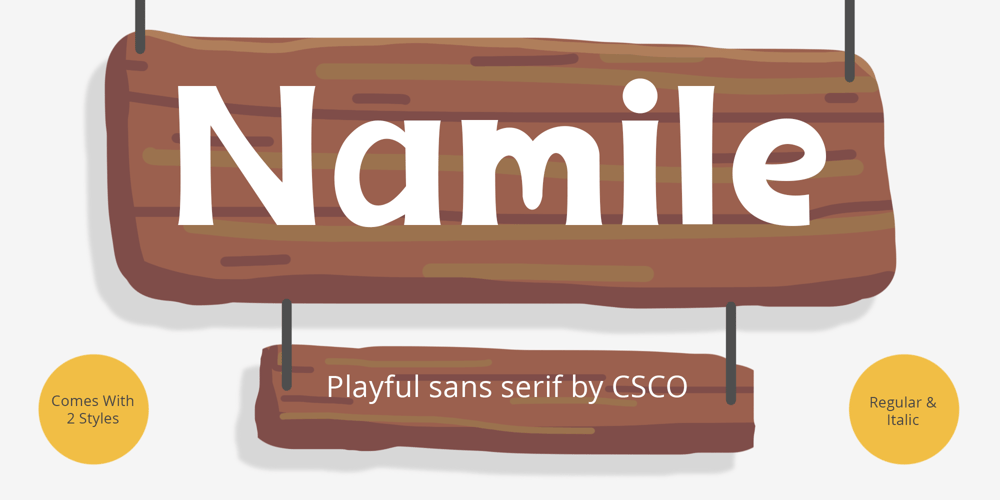
Namile
Namile font
Namile Font Family was designed by Trio Nazzar Saputra, Wahyu Hadi Yuana and published by Craft Supply Co. Namile contains 2 styles and family package options. Introducing Namile – Playful Sans SerifA Playful Twist on Sans SerifNamile, our Playful Sans Serif font, is a delightful departure from the ordinary. Its quirkiness and fun factor set it apart from the crowd.Eccentric Display FontCrafted especially for eccentric displays, Namile injects a delightful dash of whimsy and vibrancy into your creative projects.Versatile for a Range of DesignsNamile’s versatility truly shines in various design contexts. This makes it an ideal choice for a broad spectrum of creative endeavors, from branding to posters.A Playful and Memorable ExperienceNamile ensures that your content is not only playful but also memorable. It captivates your audience, leaving a lasting and cheerful impression.In ConclusionIn summary, Namile – Playful Sans Serif is the font that brings a playful and quirky twist to the world of sans serif fonts. Its versatility allows it to shine in various creative projects, ensuring they stand out with a sense of fun and vibrancy. Whether it’s for branding, posters, or any other design endeavor, Namile captivates your audience, leaving a memorable and cheerful mark, making it accessible to a diverse readership.